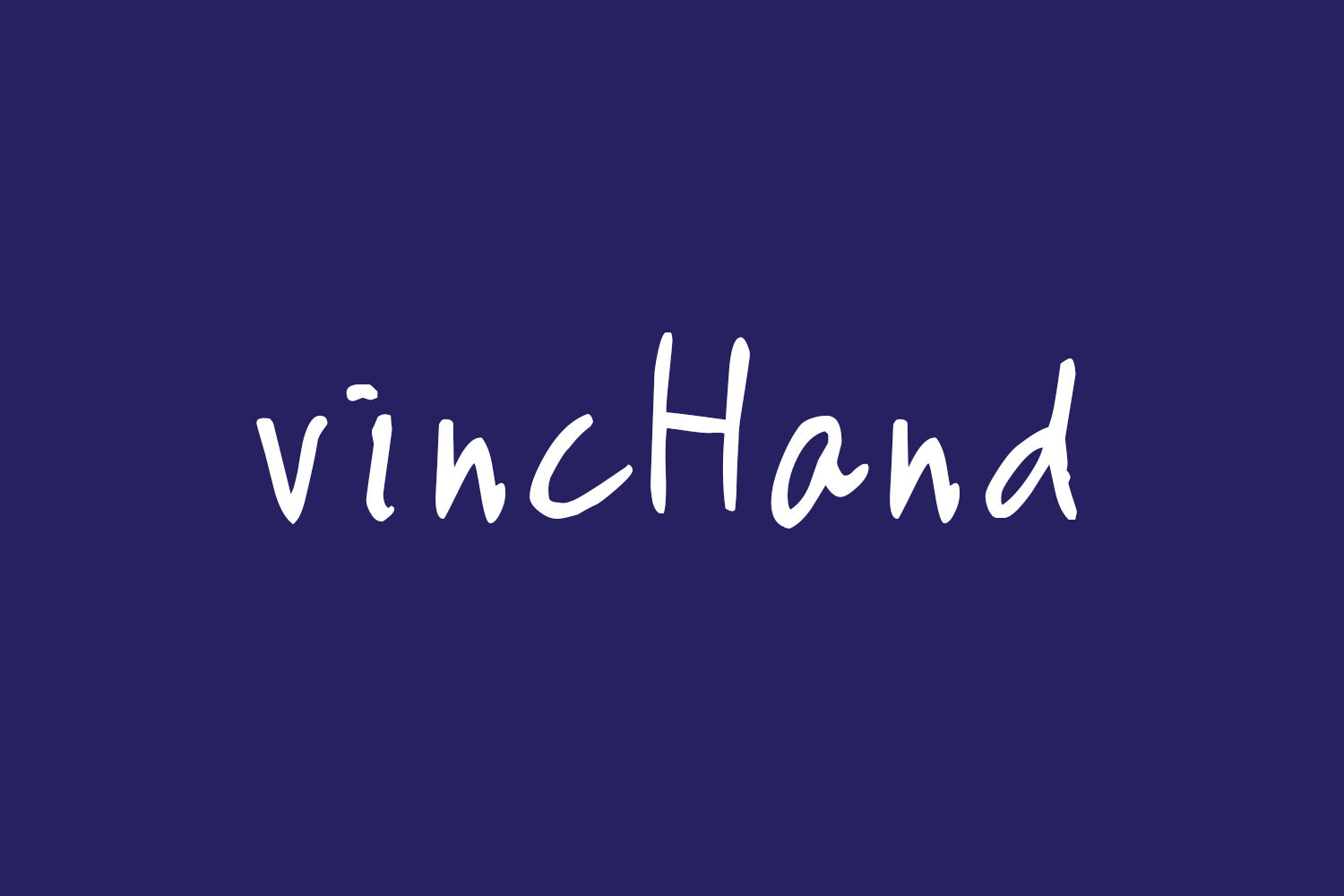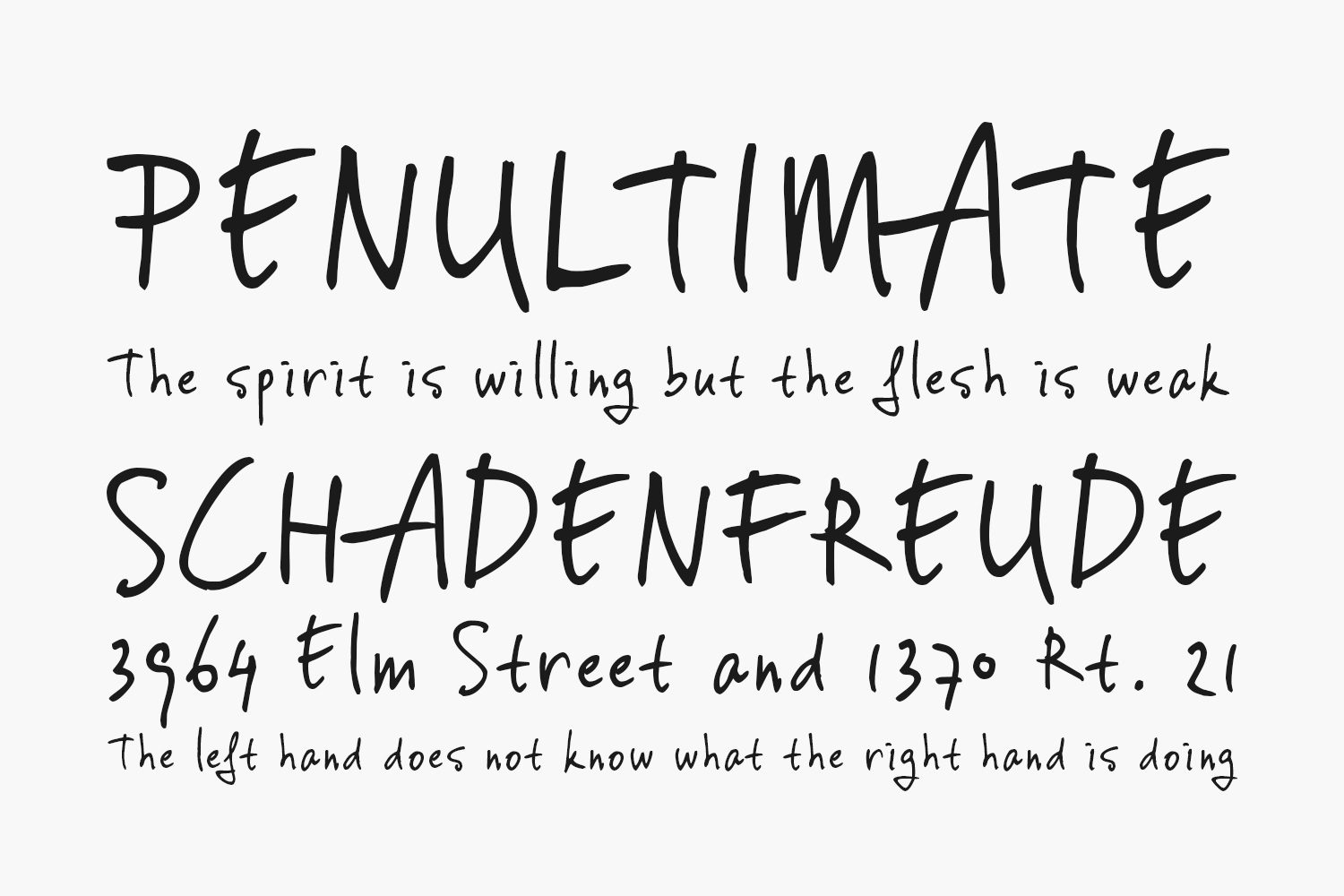
This font is a handwritten script font based on my good friend and painter Vincent Haenen’s handwriting. This font is free for both personal and commercial purposes.
Designed by JOEBOB graphics